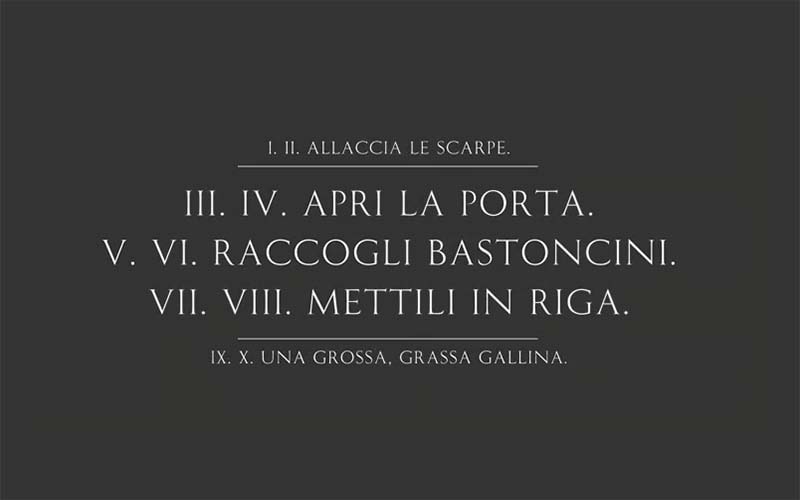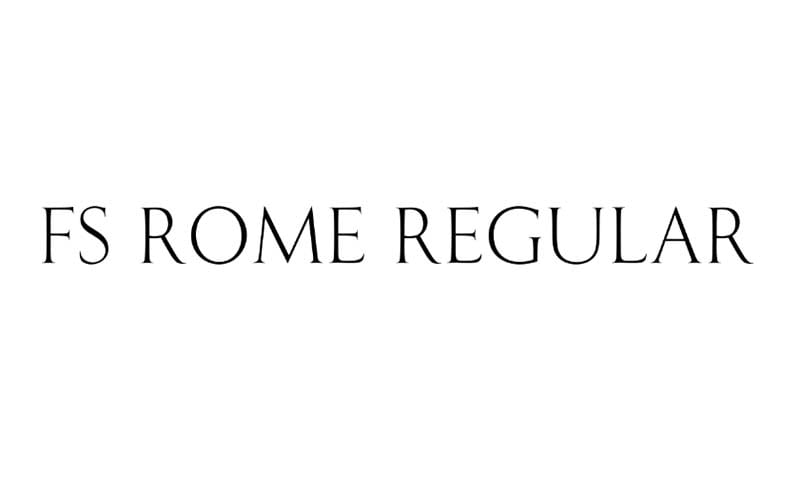
FS Rome Regular Font is a famous display typeface. Its smooth and clear texture adds value to any artwork that makes your work more elegant.
This font was designed by famous designers Mitja Miklavcic, and Emanuela Conidi who designed this to give a professional look to your’s projects, and was published by Fontsmith.
The subfamily of this font is regular and contains one style such as the “FS Rome Regular” font. This style makes this font unique around the world.
An amazing font has special characters with accents, 26 letters of the alphabet in upper and lower case, numbers, and all caps. Let’s take a single look at its texture.
FS Rome Regular Font